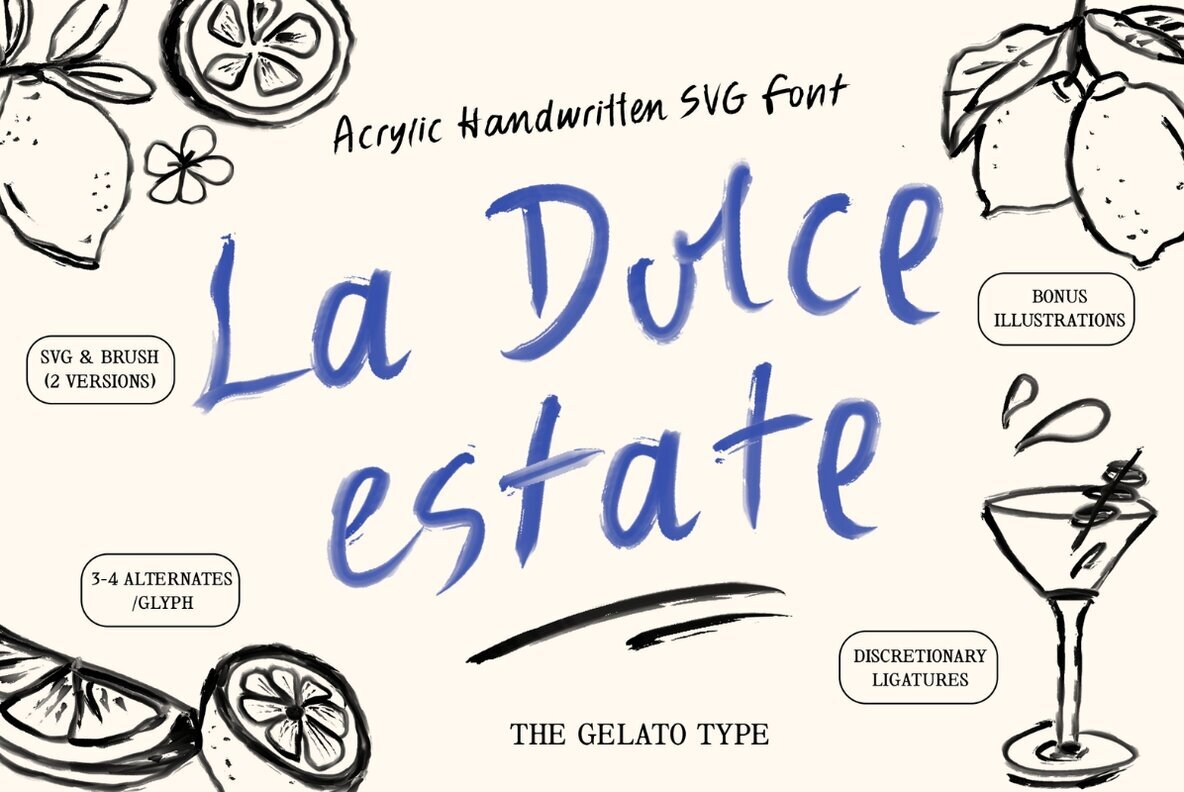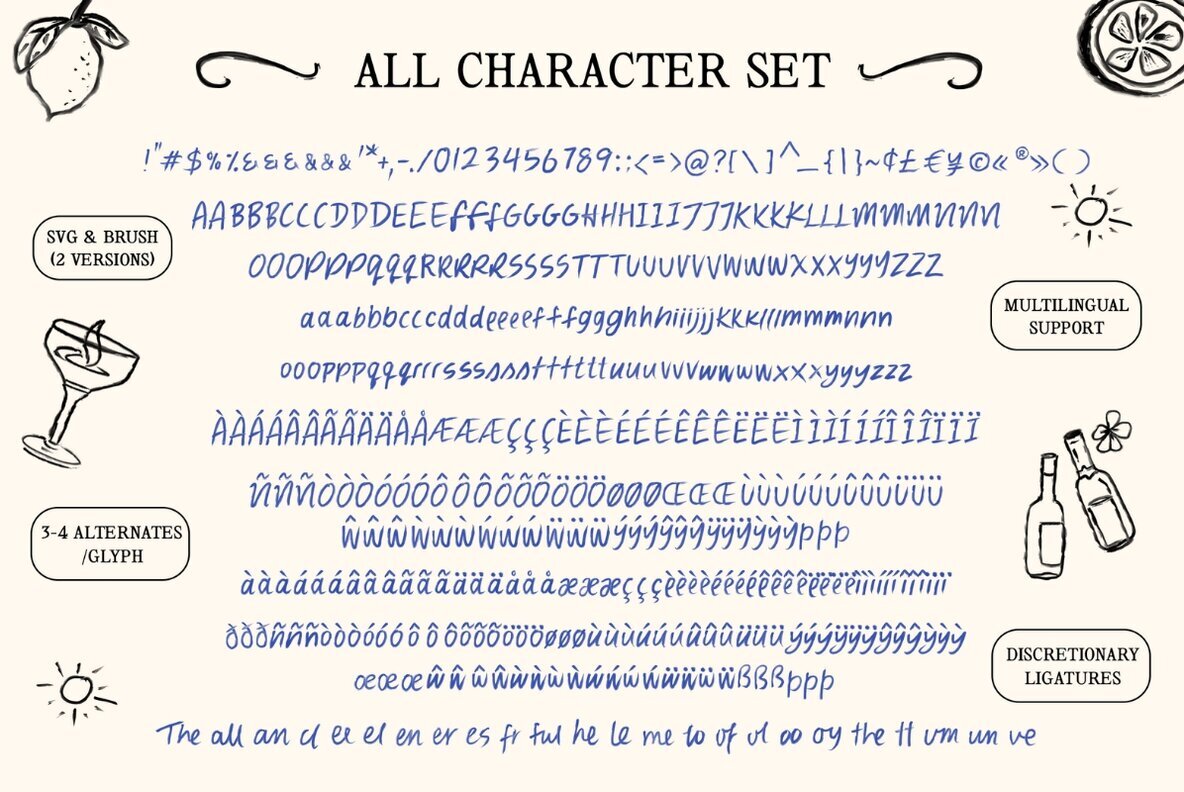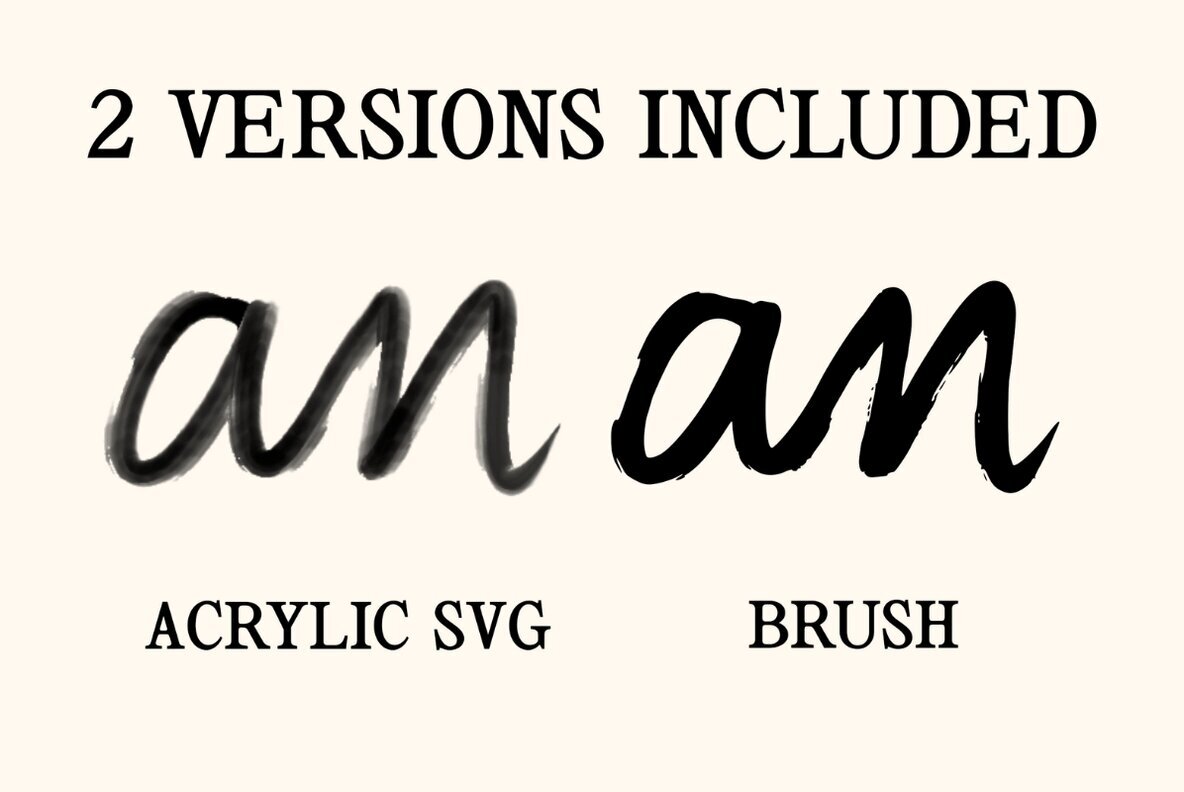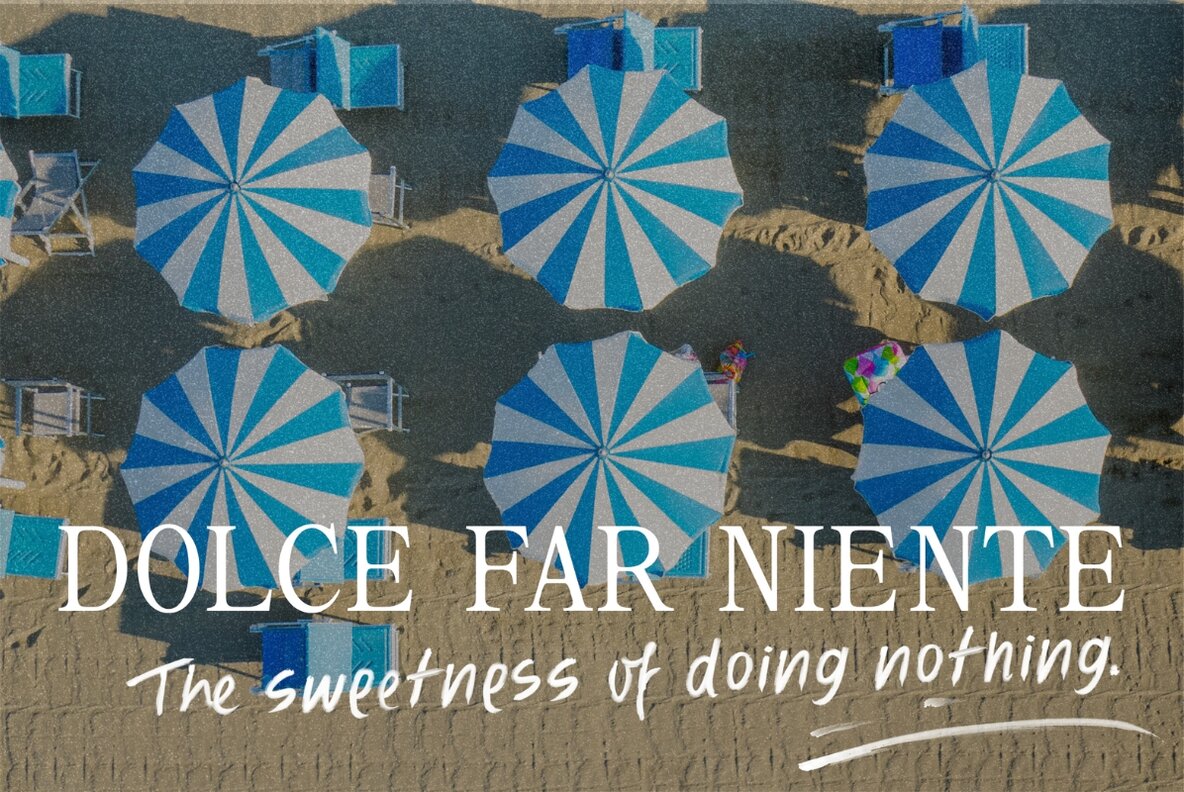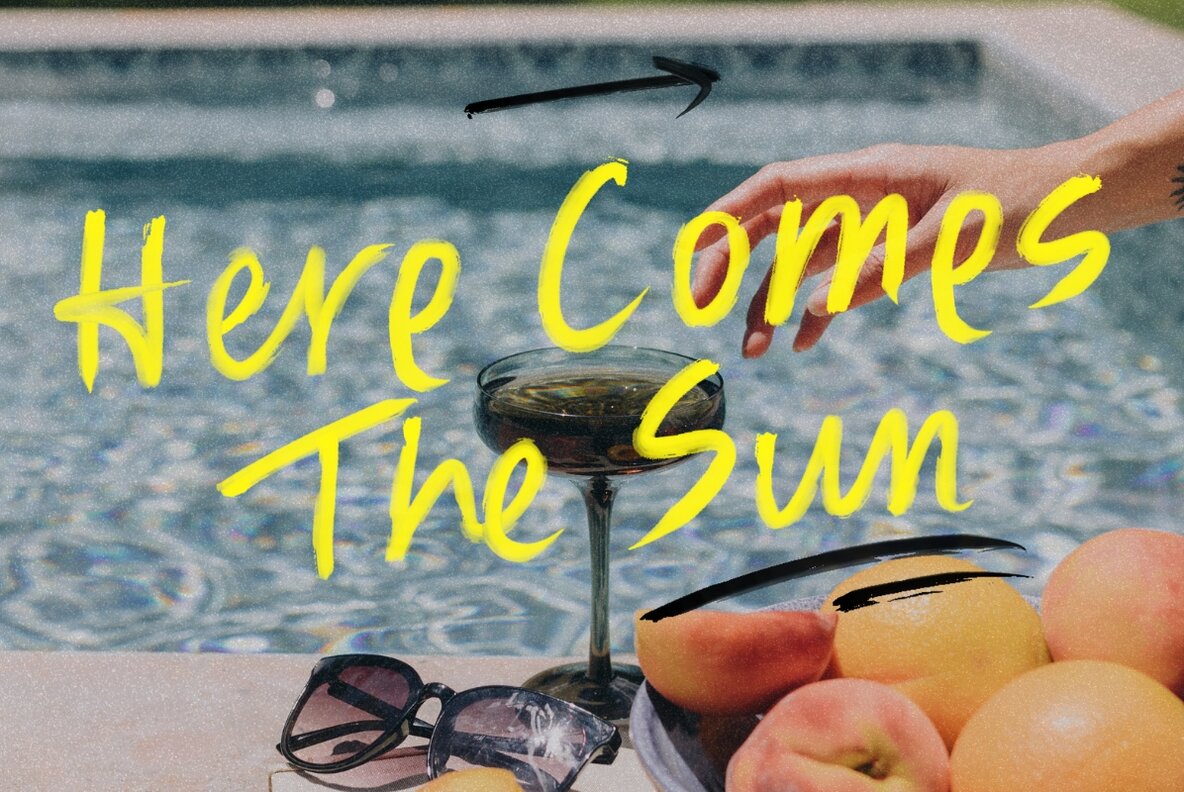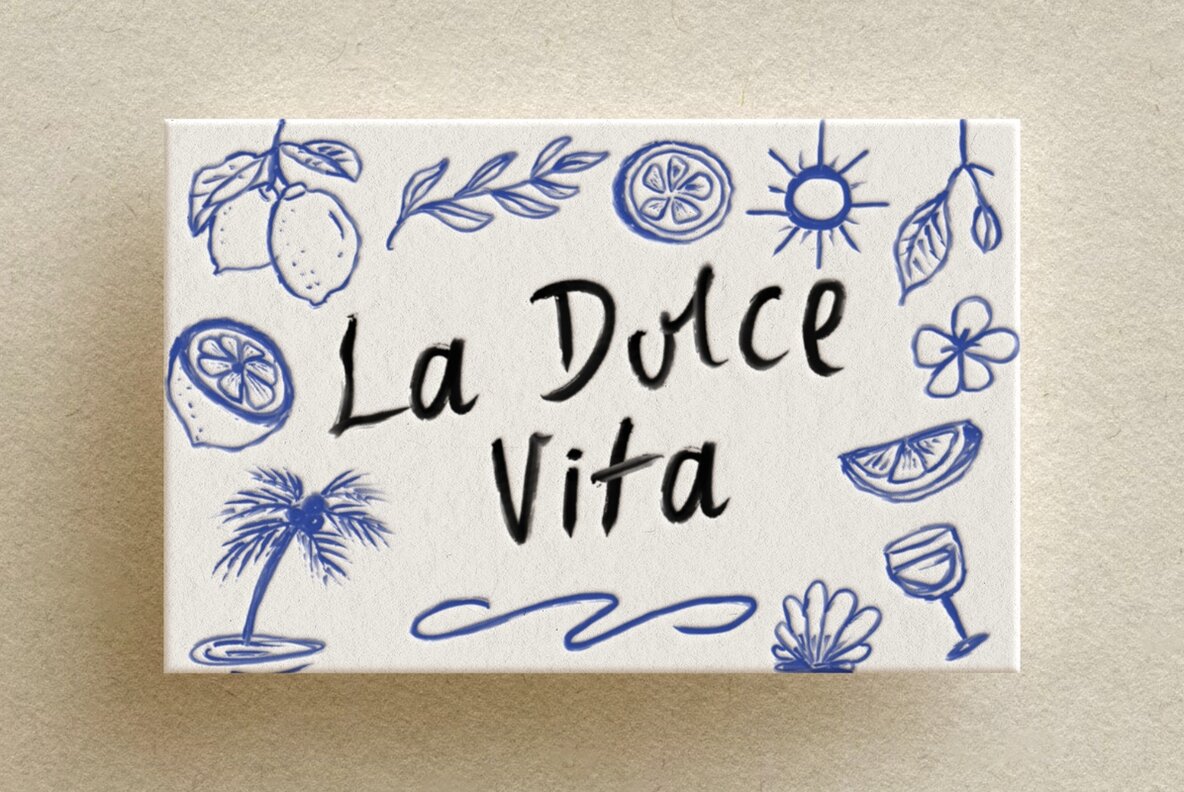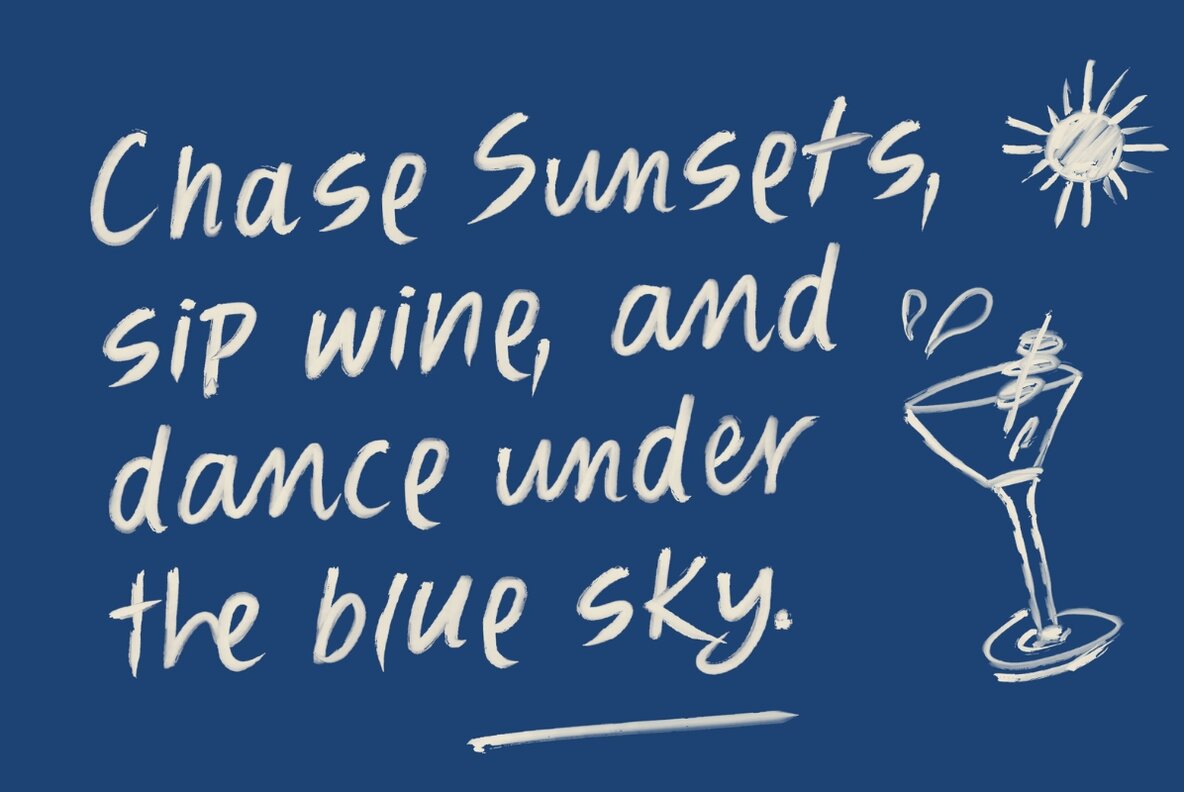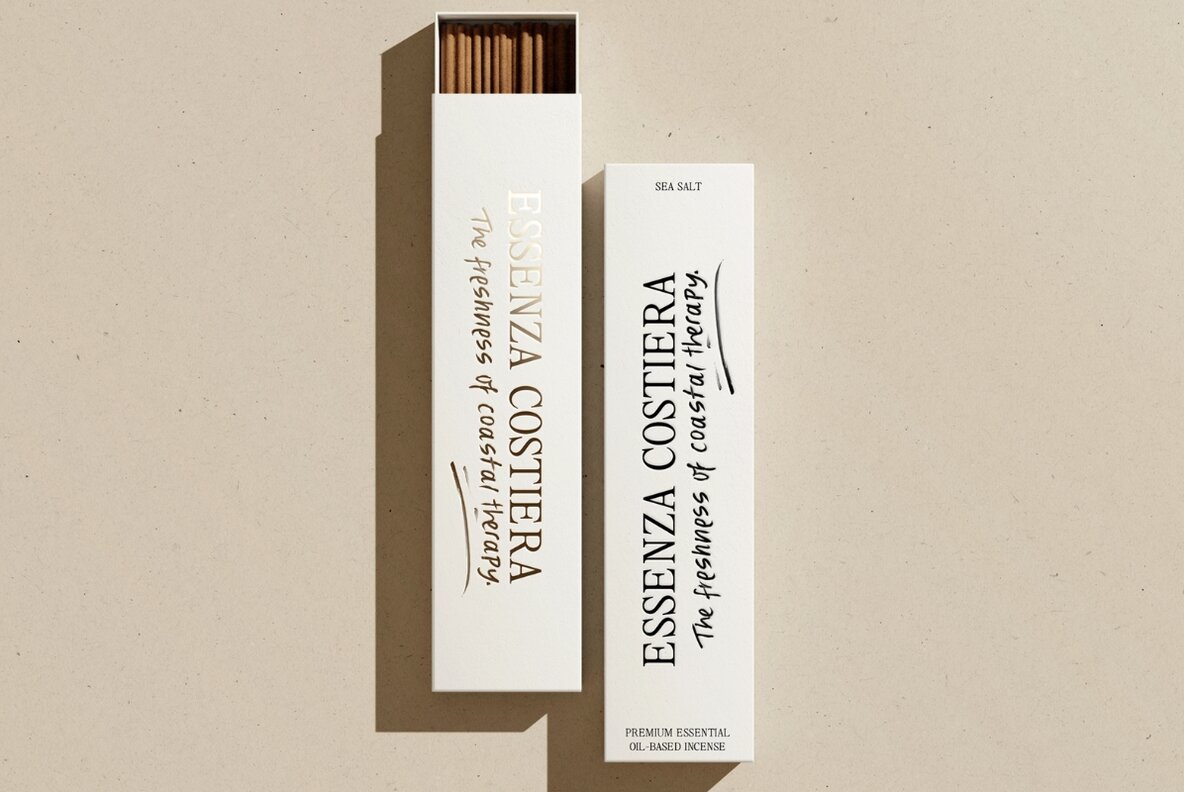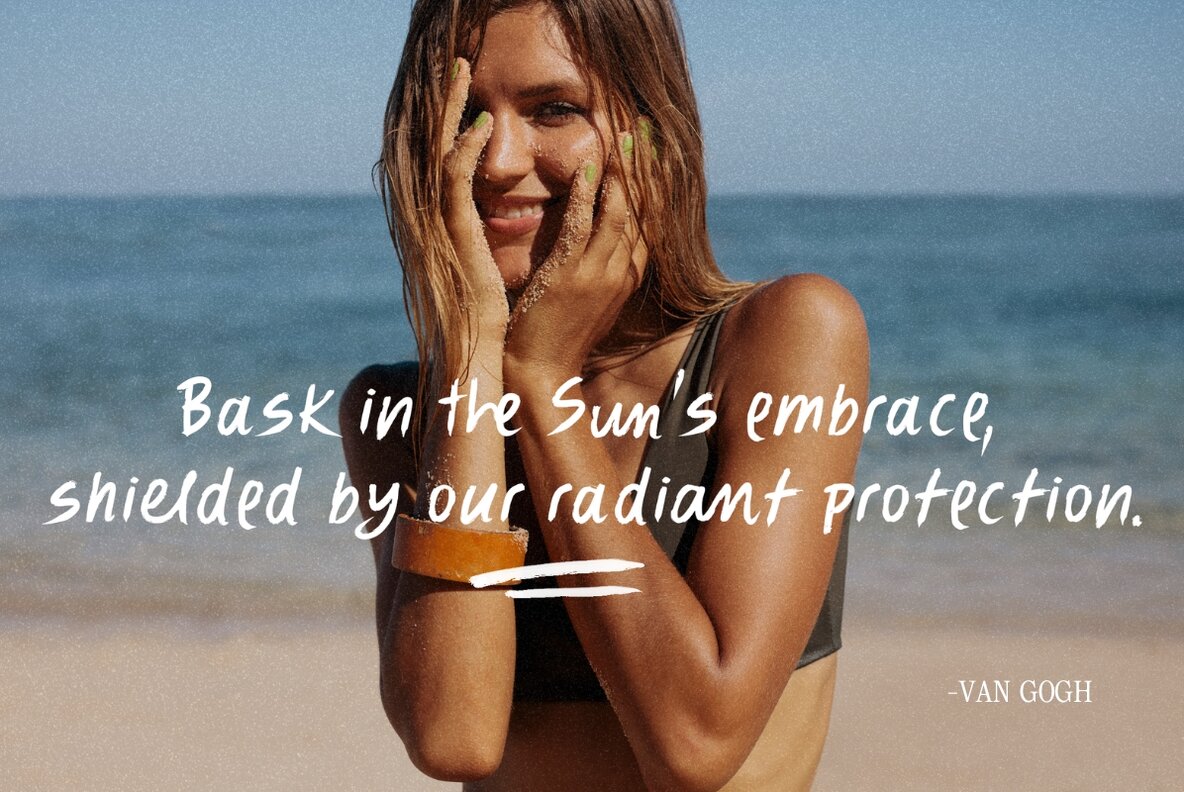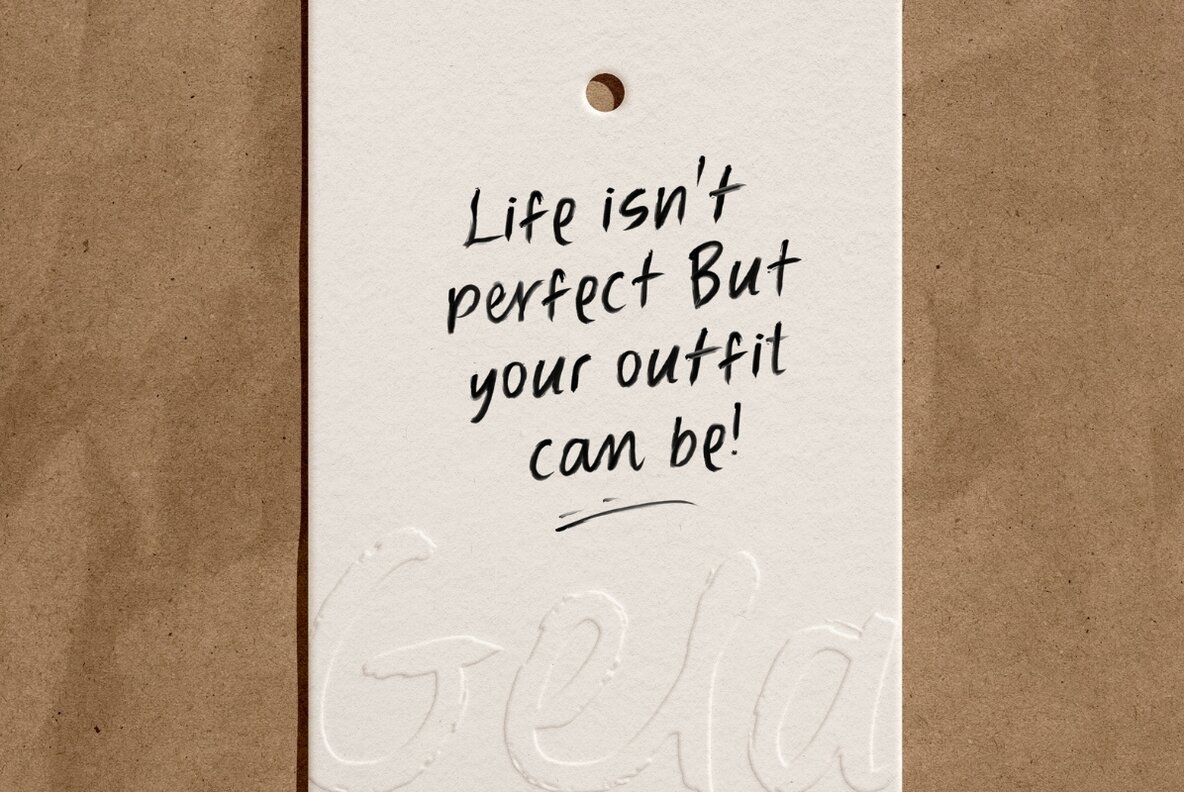
La Dolce Estate Font
La Dolce Estate Brush
Infuse your projects with the carefree spirit of summer through La Dolce Estate, an enchanting acrylic SVG brush font that embodies sun-soaked days and breezy evenings. Crafted to bring a touch of handcrafted authenticity, this versatile typeface offers a warm and inviting elegance. Available in two versions—SVG and Brush—each variant brims with character. La Dolce Estate is enriched with OpenType Features, which include discretionary ligatures and 3-4 alternates per glyph. These features allow designers to create custom typography with a genuine artisanal feel, enhancing the storytelling of your work. Whether you're designing posters for a beach party, invitations for a destination wedding, or adding a splash of summer to your branding, this font inspires creativity at every turn.La Dolce Estate: Breezy Artisanal Font for Summer Designs